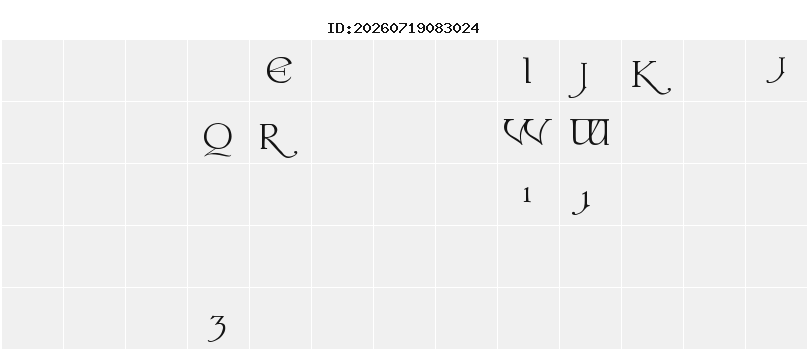
• Font Name: Colwell - Alternates
• Designer: Fleisch & Apostrophe
About Colwell - Alternates.ttf
Colwell - Alternates.ttf is a modern, elegant sans-serif font designed for ultimate readability and visual harmony. Perfect for branding, headlines, web design, and print materials.